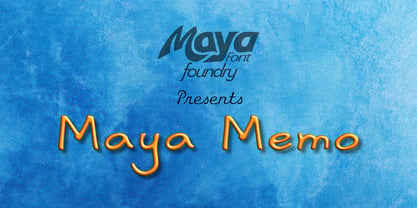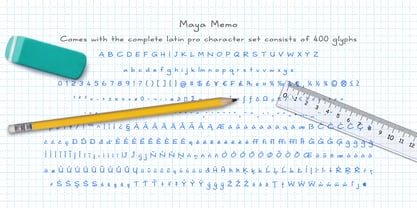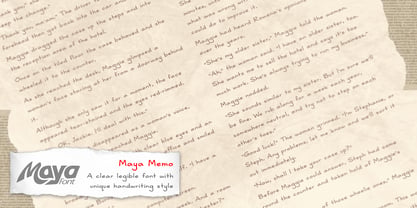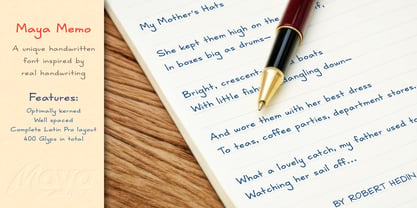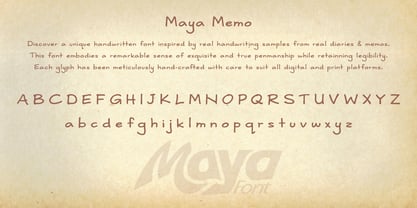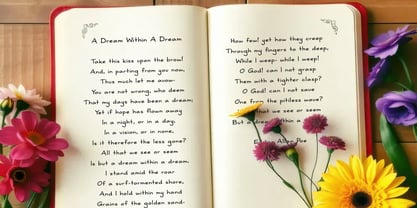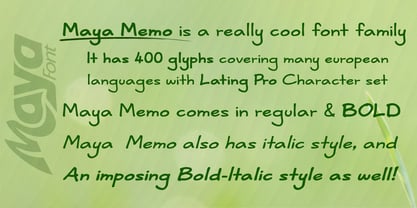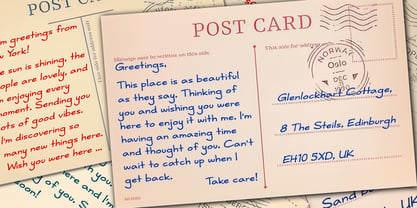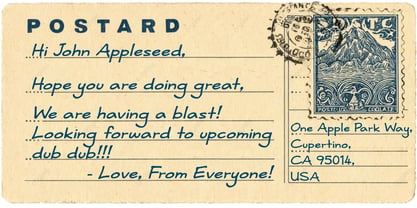
Maya Memo
La familia tipográfica Maya Memo fue diseñada por Mohan Samarasinghe y publicada por MayaFont. Maya Memo contiene 4 estilos y opciones de paquete familiar. Más información sobre esta familia
Discover a unique handwritten font inspired by genuine handwriting samples from real diaries and memos of an authentic author. This font embodies a remarkable sense of exquisite and true penmanship. Each glyph has been meticulously hand-crafted, with careful tracing and adjustments made to suit digital platforms. The spacing and kerning of each glyph are expertly designed to deliver an authentic handwriting experience. The glyph set is significantly expanded, covering the complete Latin Pro character set with a total of 400 glyphs, making it ideal for branding, web design, and editorial projects both display and print. Font family contains four styles including Regular, Bod, Italic and Bold-Italic styles.
MayaFont Foundry is founded by Mohan Samarasinghe with a lifelong passion for visual communication. The founder has worked in commercial logo and graphic design and personal type and font design for many years since 2004 prior to completing surgical training. Today, the foundry would like to share these carefully crafted fonts with a wider audience. Typefaces shaped by deep appreciation for good design across print and digital media, sits at the intersection of artistry and design.